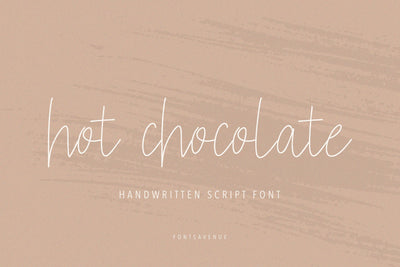
Hot Chocolate | Modern Thin Script Font
Hot Chocolate is a modern thin handwritten script font, perfect for invitations, logo design, branding, product packaging, quotes and much more!
- Uppercase and lowercase letters
- Accented characters